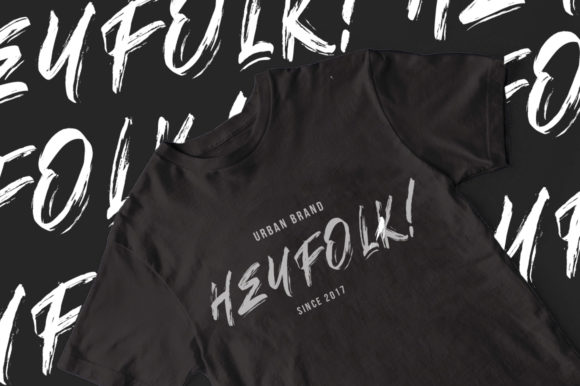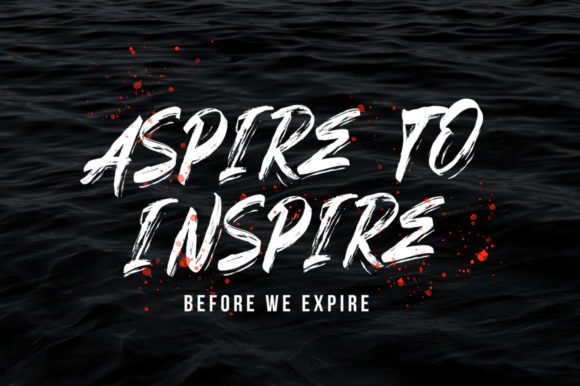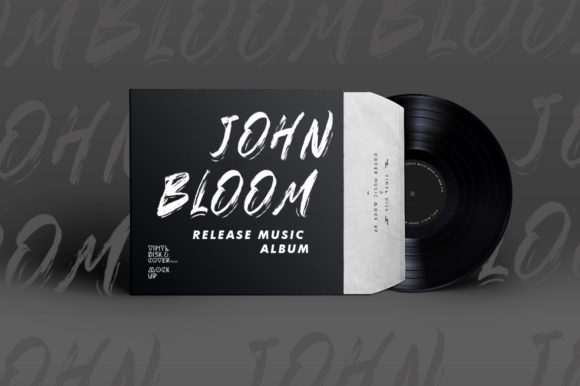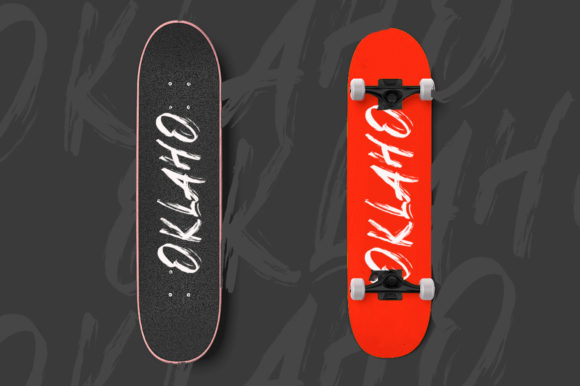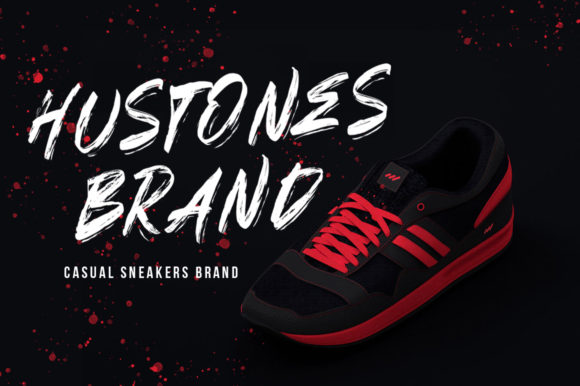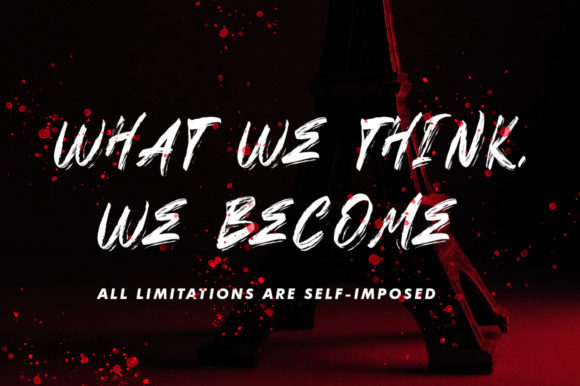
Goshbe Font: The Perfect Handwritten Font for DIY Projects
Are you a designer or crafter looking for a unique and authentic font to bring your DIY projects to life? Look no further than the Goshbe Font! This stunning handwritten font is the result of a beautiful pairing of a brush pen and pencil, giving it an endearing and genuine feel that’s sure to capture the hearts of your audience.
The Origins of Goshbe Font
The Goshbe Font is a one-of-a-kind creation that showcases the beauty of handwritten typography. The font is crafted from a combination of brush pen and pencil strokes, which gives it a distinctive and charming appearance. The result is a font that exudes warmth, personality, and a sense of human touch that’s often lacking in digital designs.
What Makes Goshbe Font So Special?
So, what sets the Goshbe Font apart from other fonts out there? Here are just a few reasons why this font is a cut above the rest:
• Unique and Authentic Look: The Goshbe Font boasts a truly unique and authentic look that’s reminiscent of handwritten notes and letters. Its distinctive strokes and imperfections give it a charming, homemade feel that’s perfect for DIY projects.
• Emotional Connection: The Goshbe Font has a way of evoking emotions and creating a connection with the reader. Its warm and inviting appearance makes it perfect for designs that require a personal touch, such as greeting cards, invitations, and scrapbooking.
• Versatility: Despite its unique appearance, the Goshbe Font is surprisingly versatile and can be used for a wide range of design projects, from digital art to print materials.
How to Use Goshbe Font in Your DIY Projects
Ready to bring the Goshbe Font into your DIY projects? Here are some ideas to get you started:
• Greeting Cards and Invitations: Add a personal touch to your greeting cards and invitations with the Goshbe Font. Its warm and inviting appearance is perfect for special occasions like weddings, birthdays, and holidays.
• Scrapbooking and Journaling: The Goshbe Font is a natural fit for scrapbooking and journaling projects. Use it to add captions, headers, and other decorative elements to your pages.
• Digital Art and Illustrations: The Goshbe Font can also be used in digital art and illustrations to add a touch of whimsy and personality. Try pairing it with other fonts or graphics to create unique and eye-catching designs.
Tips for Getting the Most Out of Goshbe Font
Here are some tips for getting the most out of the Goshbe Font:
• Experiment with Different Sizes and Colors: Don’t be afraid to experiment with different sizes and colors to find the perfect combination for your design.
• Pair it with Other Fonts: The Goshbe Font pairs well with other fonts, so don’t be afraid to try combining it with other fonts to create interesting and dynamic designs.
• Use it to Add Emphasis: The Goshbe Font is perfect for adding emphasis to certain words or phrases in your design. Try using it to draw attention to important information or to create visual interest.
In conclusion, the Goshbe Font is a unique and authentic handwritten font that’s perfect for DIY projects. Its stunning pairing of brush pen and pencil strokes gives it an endearing and genuine feel that’s sure to capture the hearts of your audience. Whether you’re a designer or crafter, the Goshbe Font is a must-have addition to your font collection. So why wait? Download the Goshbe Font today and start bringing your DIY projects to life!